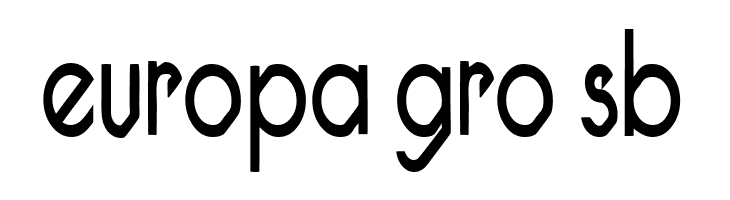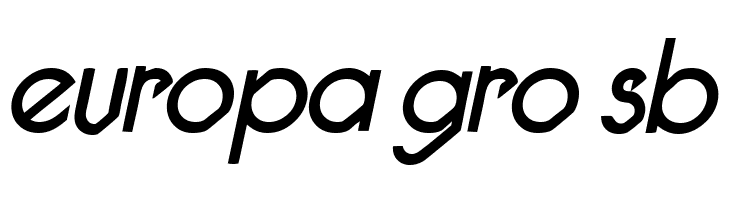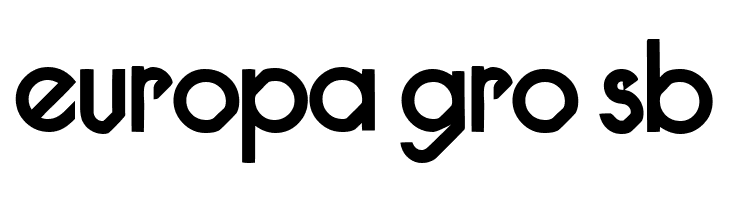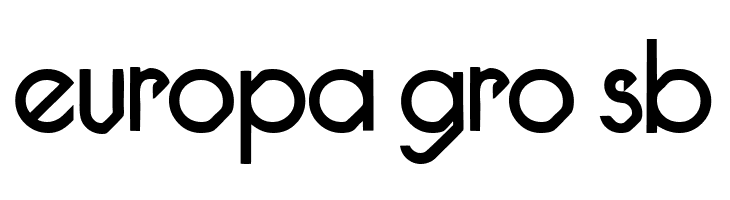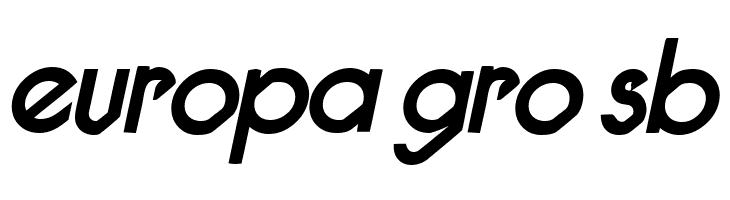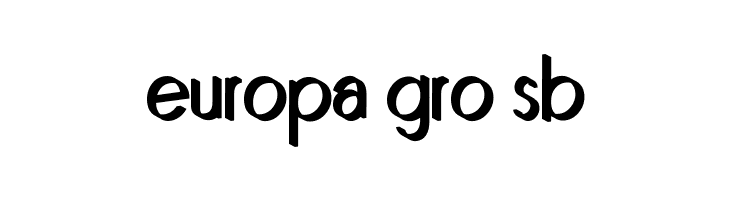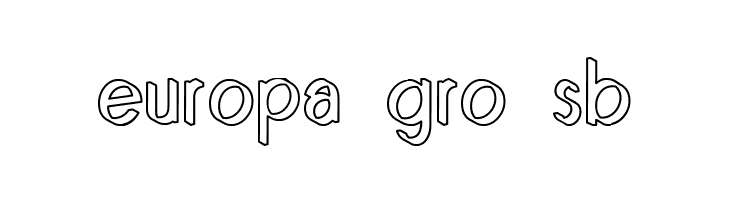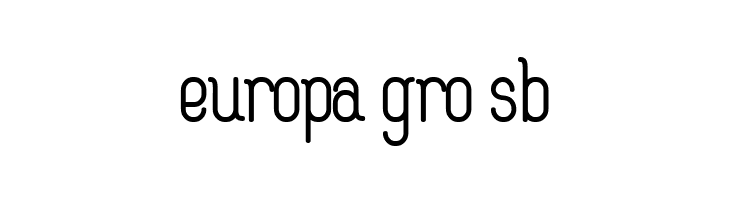
( Luc Mahler )
A modern, narrow font with angular and geometric design elements.
( Luc Mahler )
A dynamic, italic font with sharp angles and a modern style.
( Luc Mahler )
A bold, geometric font with sharp angles and a modern aesthetic.
( Luc Mahler )
A modern geometric font with sharp angles and clean lines.
( Luc Mahler )
A bold, italicized font with sharp angles and a modern, dynamic style.
( Luc Mahler )
A playful, hand-drawn font with a whimsical and dynamic style.
( Luc Mahler )
A modern, geometric outline font with consistent proportions and playful style.
( Luc Mahler )
A modern, italic outline font with clean lines and dynamic style.
( Luc Mahler )
A bold, italicized font with a playful, handwritten style.
( Luc Mahler )
A modern, monospaced font with a sleek, minimalistic design.